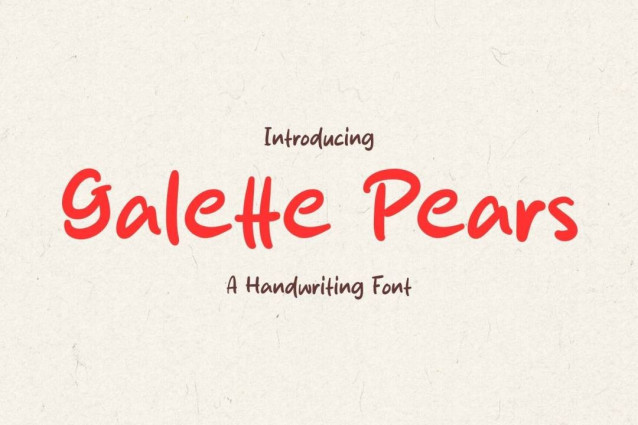
Galette Pears Font
Galette Pears Font is a simple and friendly handwritten font. Its natural and unique style makes it incredibly fitting to a large pool of designs. The only limit is your imagination!